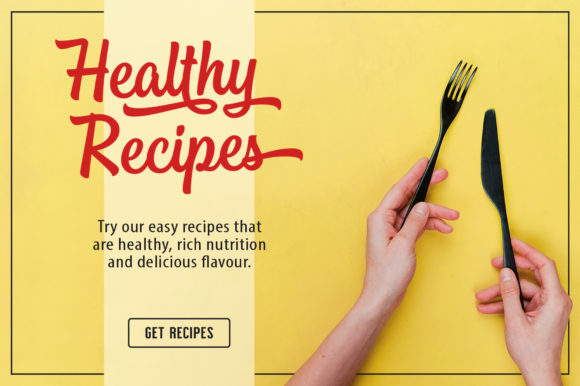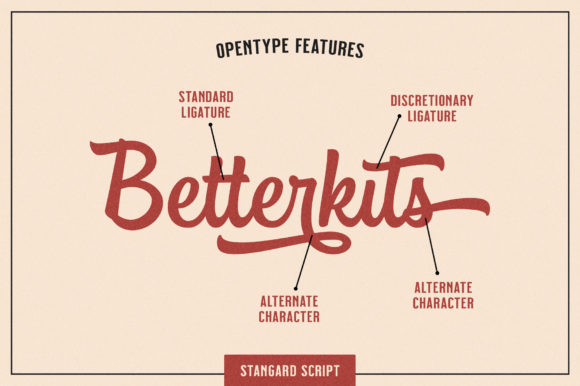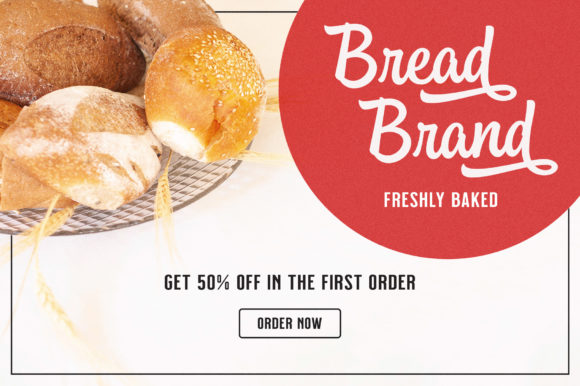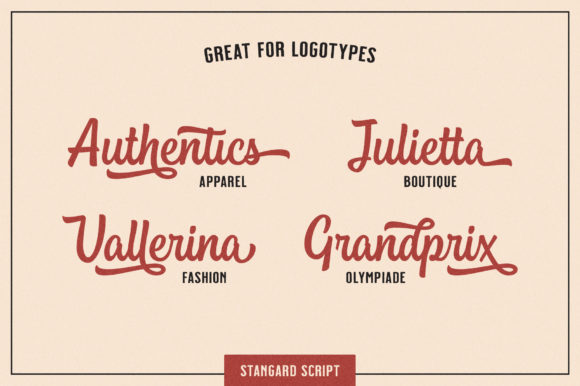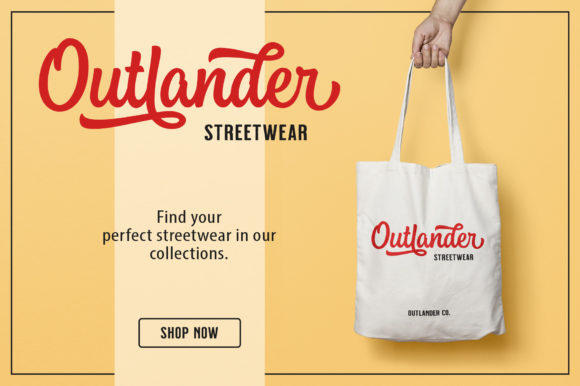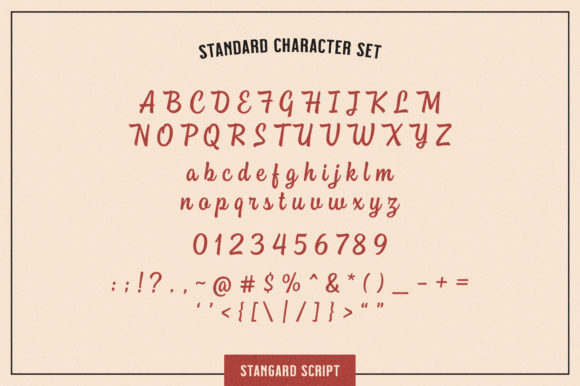
Stangard Font
About Stangard Font
Stangard feels equally charming and elegant. This stunning handwritten font is a stylish homage to classic calligraphy.